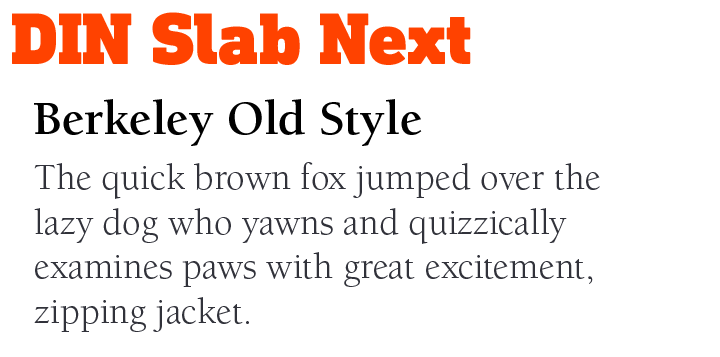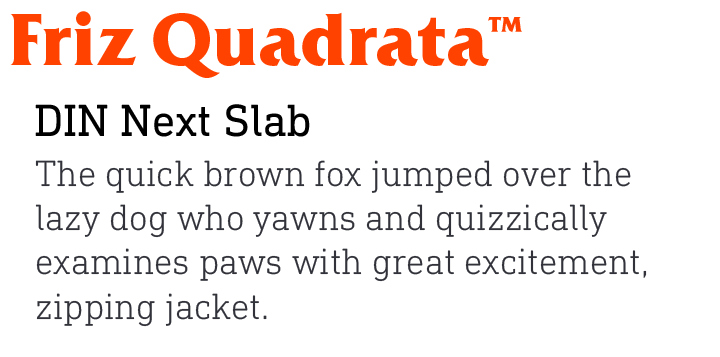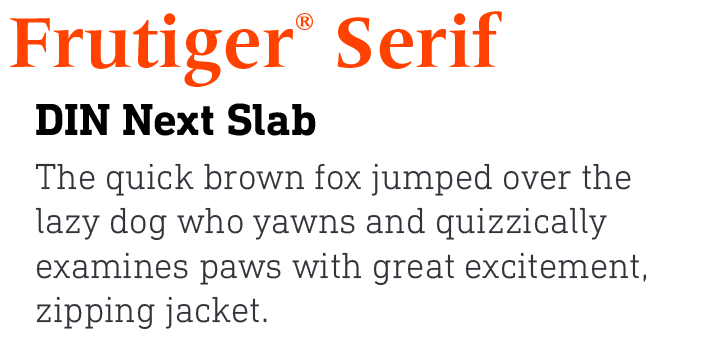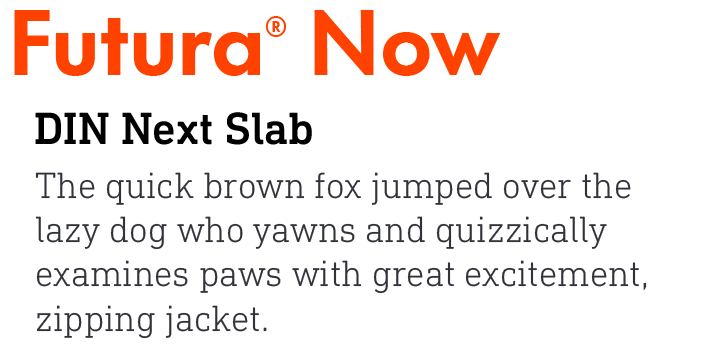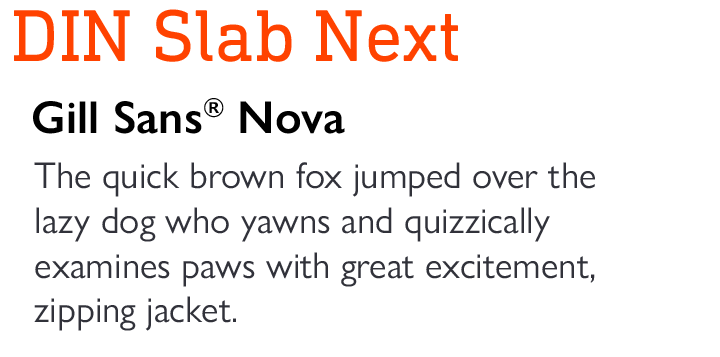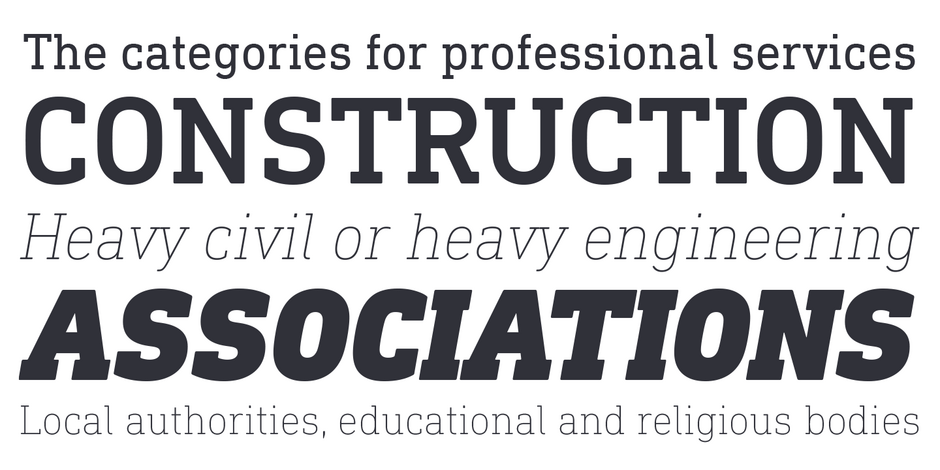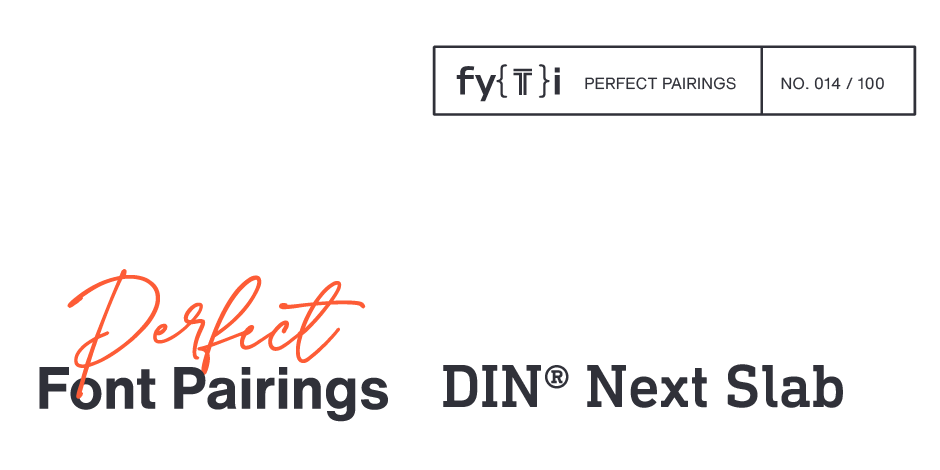
DIN® Next Slab Perfect Font Pairings
ABOUT THE FAMILY
- The family includes seven weights from UltraLight to Black, each with an italic counterpart.
- DIN Next Slab harmonizes seamlessly with DIN Next – sharing basic letterforms and weights – not only in headlines and body text but also within the same text copy block.
WHAT TO LOOK FOR IN FONTS THAT PAIR WELL WITH DIN NEXT SLAB
- Humanistic Sans, like Frutiger® Next and ITC Legacy® Sans, provides a counterpoint.
- Geometric sans-serifs like Futura® Now and ITC Avant Garde Gothic® can complement DIN Next Slab, provided that noticeable weight differences are maintained.
- If you choose a serif typeface, it should be obviously different from DIN Next Slab. Consider designs like Albertus™ or Quorum™.
- Avoid Slab Serif and Clarendon designs, like Egyptian Slate™, Charter™, and Rockwell® Nova.
DIN NEXT SLAB PAIRING WITH DISPLAY FONTS
DIN NEXT SLAB PAIRING WITH TEXT FONTS